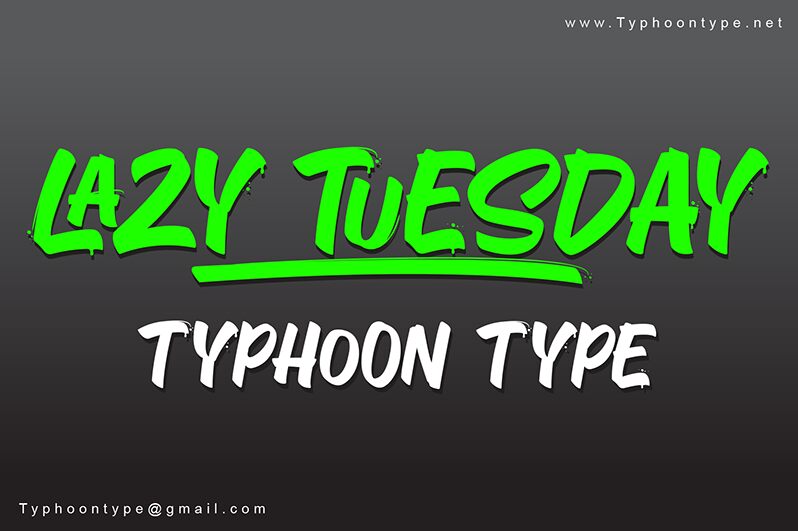
Lazy Tuesday, crafted by Typhoon Type - Suthi Srisopha, exudes a casual charm with its semi-bold brush style that captures the essence of a laid-back afternoon. The font's hand-painted strokes convey a sense of warmth and approachability, making it an ideal choice for designs that require a touch of personality and intimacy.
The aesthetic appeal of Lazy Tuesday lies in its fluidity and expressiveness; each character appears to have been effortlessly brushed onto the canvas, creating a natural rhythm in text. This font is perfect for projects that call for an organic feel—be it branding, editorial design, or eye-catching social media posts.
Embrace the relaxed vibe of Lazy Tuesday to infuse your creative work with an air of easy-going sophistication and a distinctly human touch.
To create a special underline effect, type the asterisk sign (*) 2 to 6 times. For example, to underline 'Lazy Tuesday,' you would type 'Lazy Tu*****esday'.